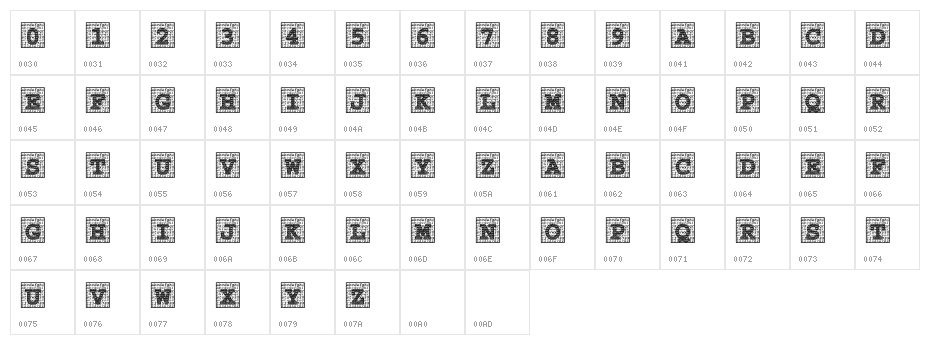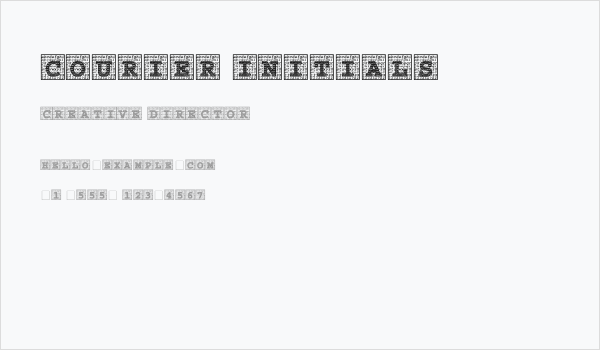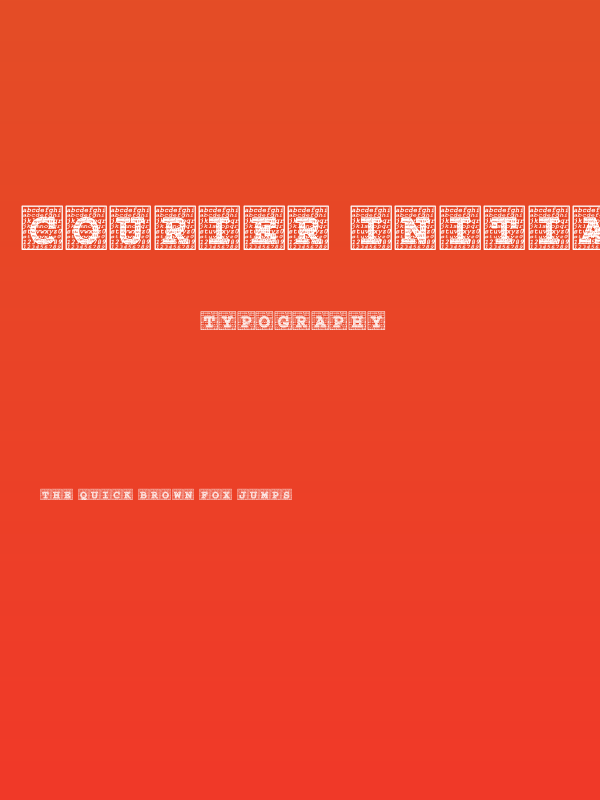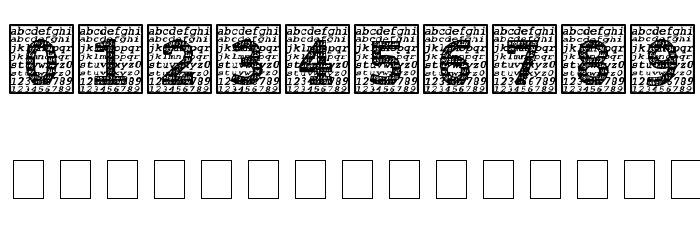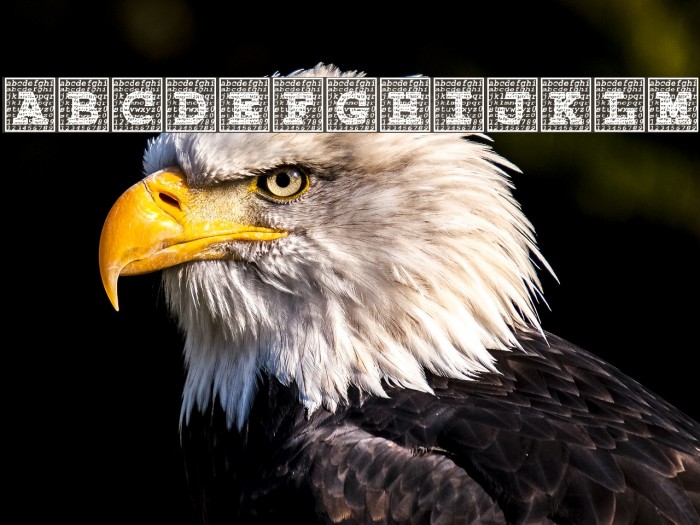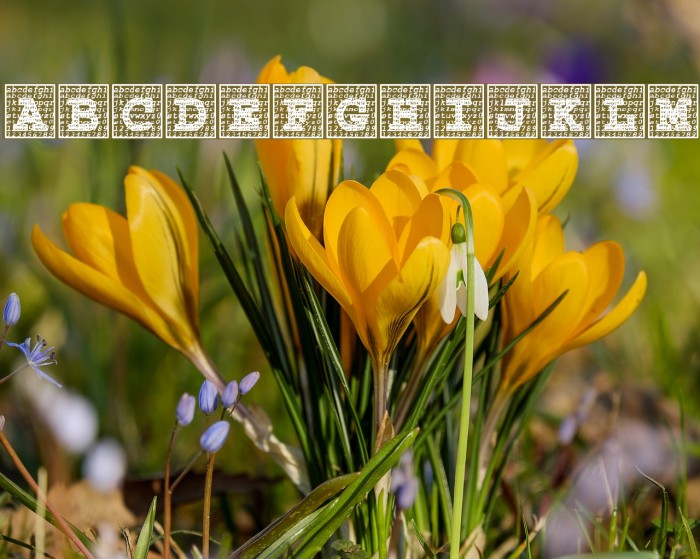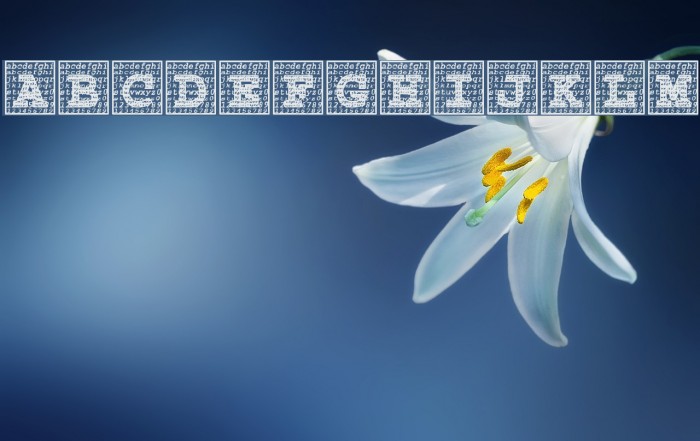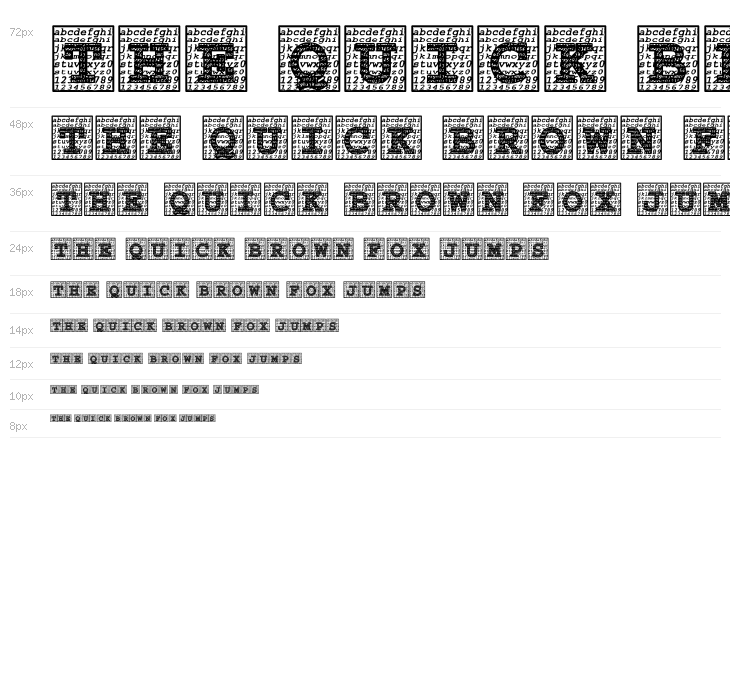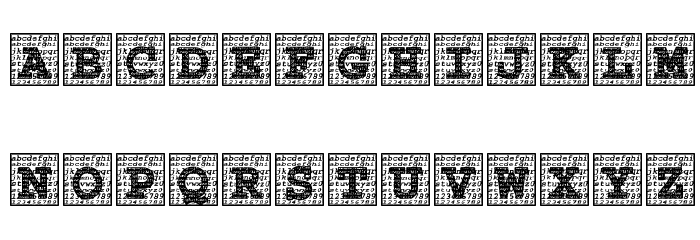
Courier Initials Font
Courier Initials Description
This font features a unique decorative style where each character is enclosed within a square, resembling a stamp or a monogram. The letters and numbers are bold and prominently displayed, with a textured background that adds depth and complexity. The overall appearance is reminiscent of vintage typewriter keys, giving it a nostalgic and classic feel. The characters are evenly spaced within their squares, ensuring clarity and readability despite the intricate design. This font is particularly suitable for projects that require a touch of elegance and sophistication, such as invitations, branding, or decorative headings.